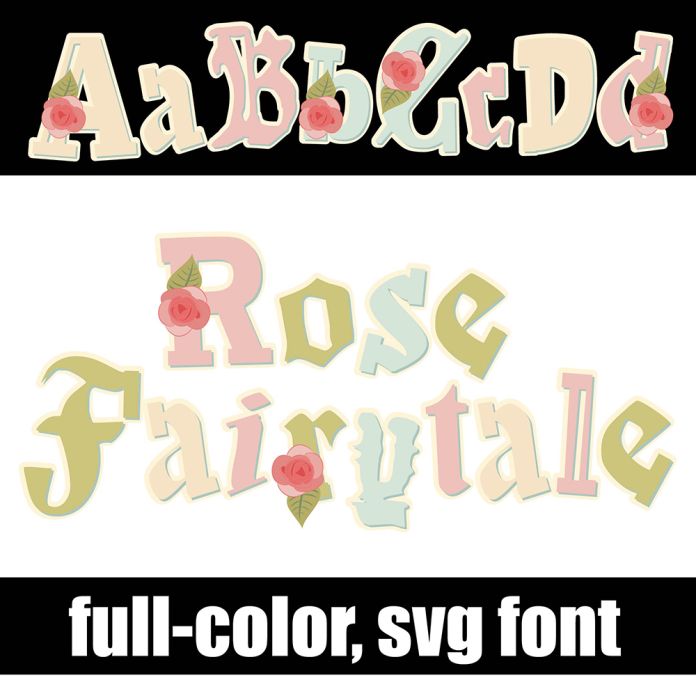
This full-color font features a pretty, fairy-tale style font in pastel colors with roses throughout. There is an alt case with an additional color of each letter. This font works best for titles, displays, posters and more. Please note color fonts will show as black in non compatible programs. This font type is compatible with Silhouette Studio.